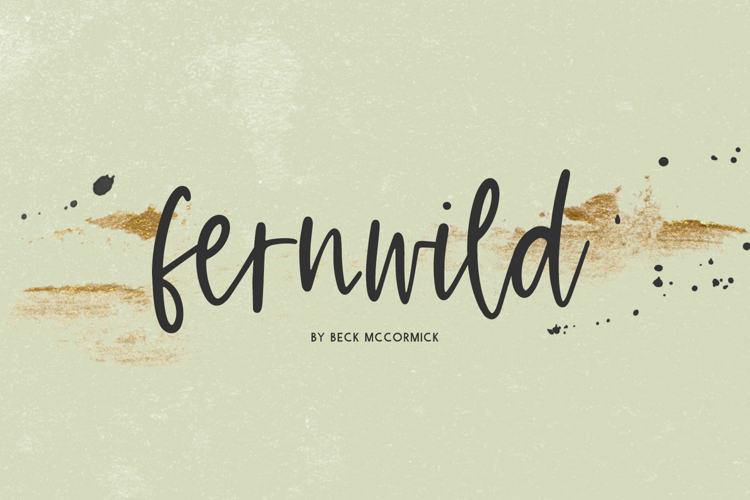
Introducing Fernwild, a modern script. Fernwild features neat, crisp characters.
Fernwild is best for:
- feminine, crafty projects with your Cricut or Silhouette machine, or your SVG design business
- farmhouse decor and crafts
- digital planners & apps like Goodnotes
- website design + website accents, blog design
- feminine graphic tee shirt design & other apparel